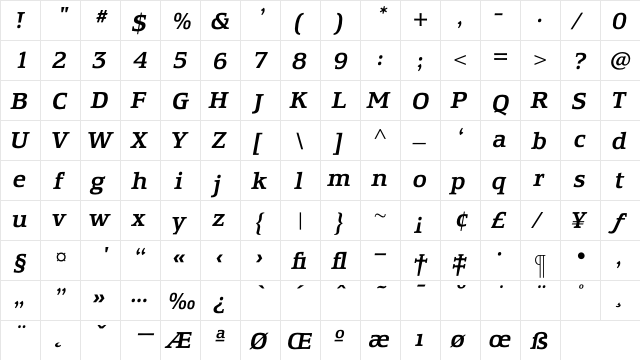
EquestrienneMediumItalic Regular Font Preview
EquestrienneMediumItalic Regular
EquestrienneMediumItalic Regular Font Details
Design Context for EquestrienneMediumItalic Typeface
EquestrienneMediumItalic takes a measured approach to typography — its balanced proportions and neutral character make it a reliable workhorse for both digital and print work. Its italic angle brings a sense of urgency and motion to the letterforms.
Pro Tip: Try EquestrienneMediumItalic for annotation and caption copy alongside an upright companion — the contrast in angle creates a dynamic but ordered typographic system.